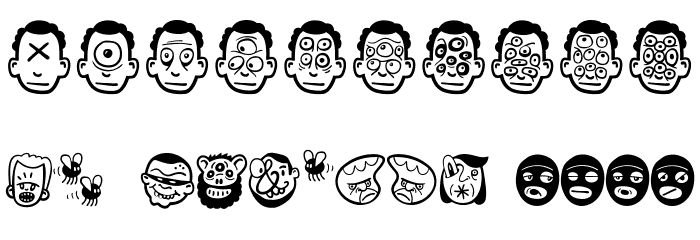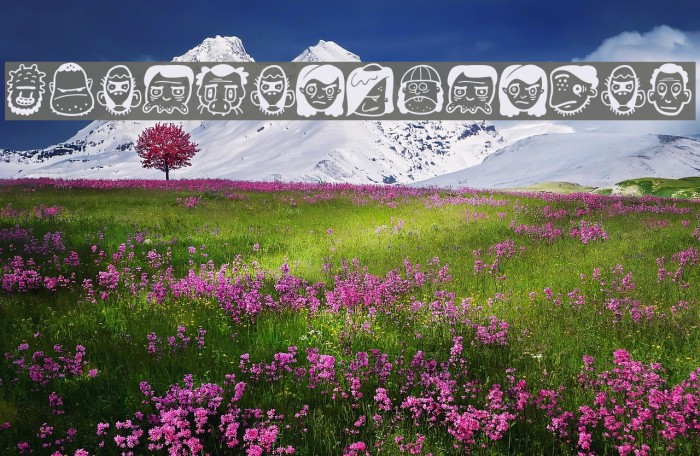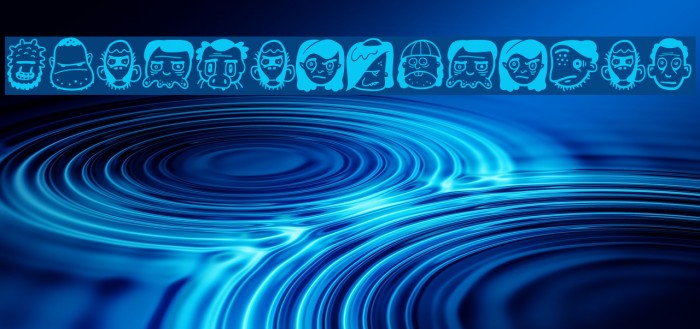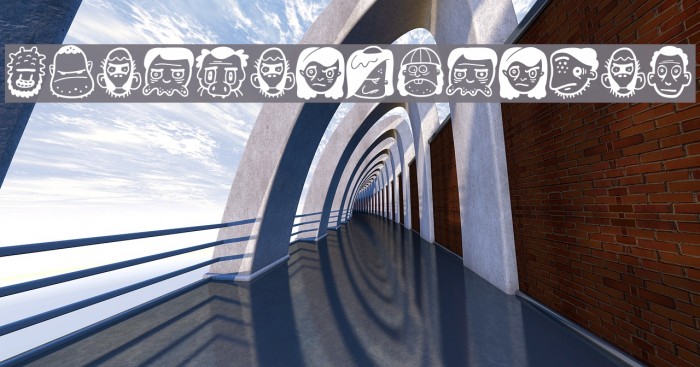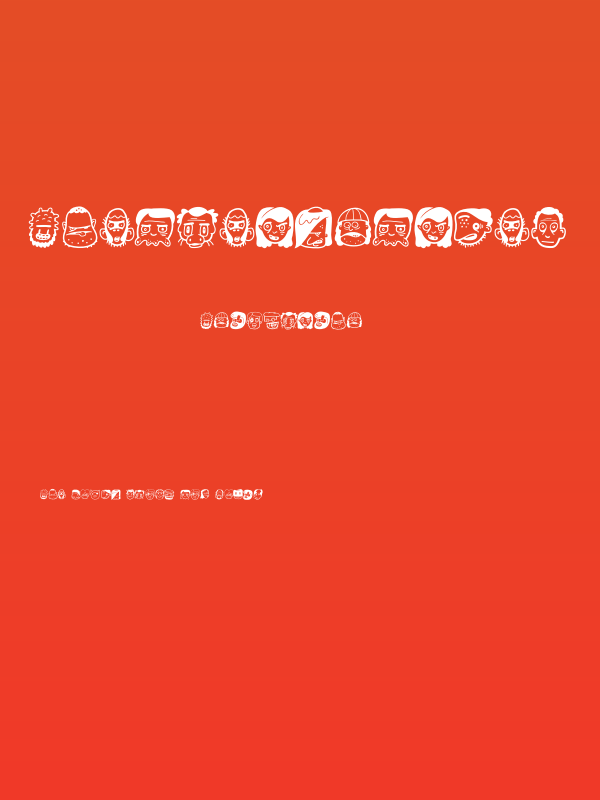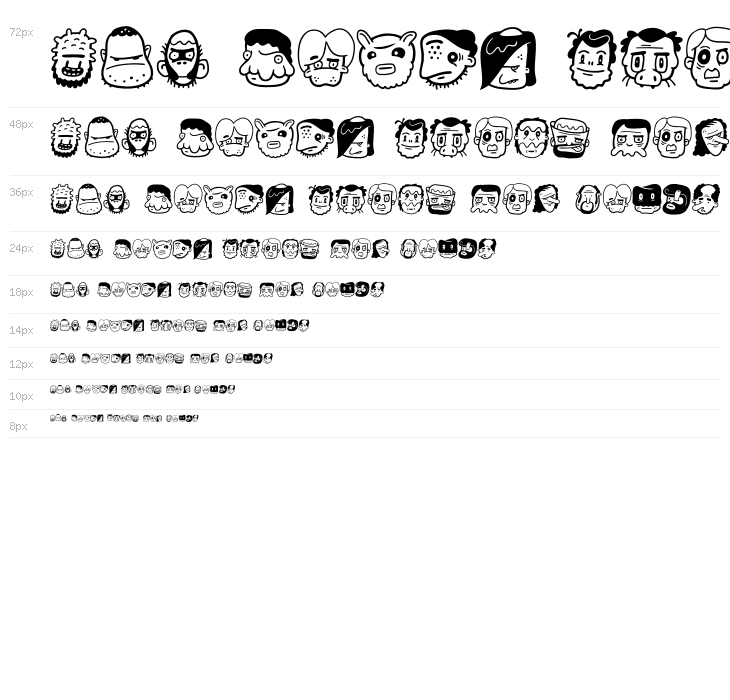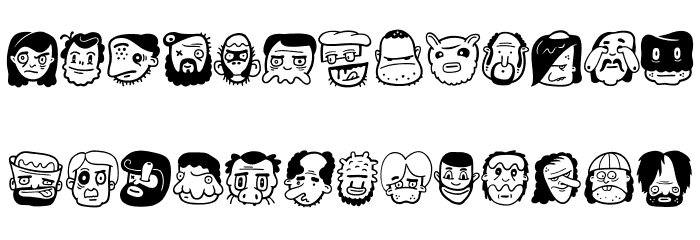
TheFreakyFace2 Font
TheFreakyFace2 Description
A playful, hand-drawn decorative font where each character is represented by a unique cartoon face or expressive illustration, featuring thick, uneven strokes and high contrast between filled and open areas. The style is whimsical and bold, with exaggerated facial features and a comic-like appearance.
| Overall Style | Decorative, Playful, Comic |
| Use Case | Headlines, Posters, Logos, Themed Graphics |
| Proposed Projects | ChildrenΓ’β¬β’s books, comic titles, party invitations, posters, novelty branding, Halloween or themed events. |